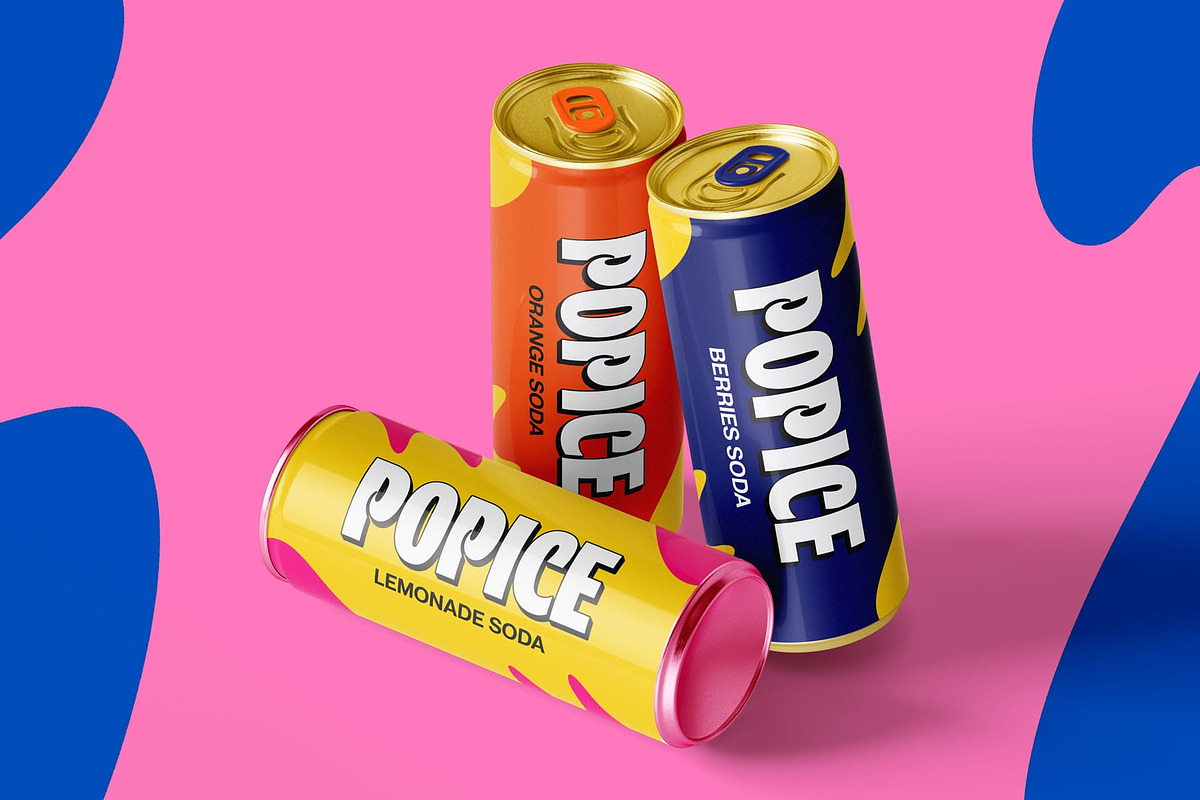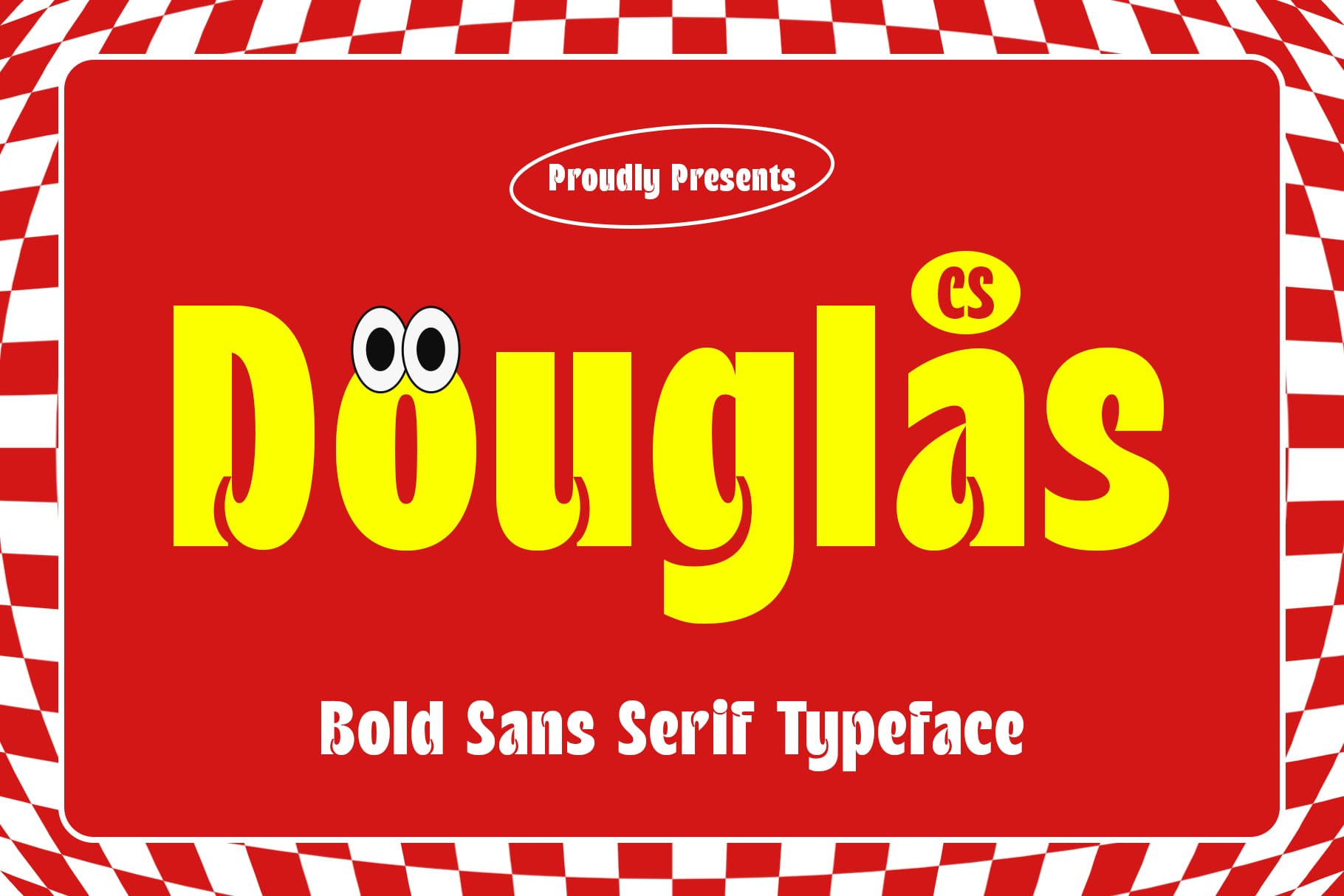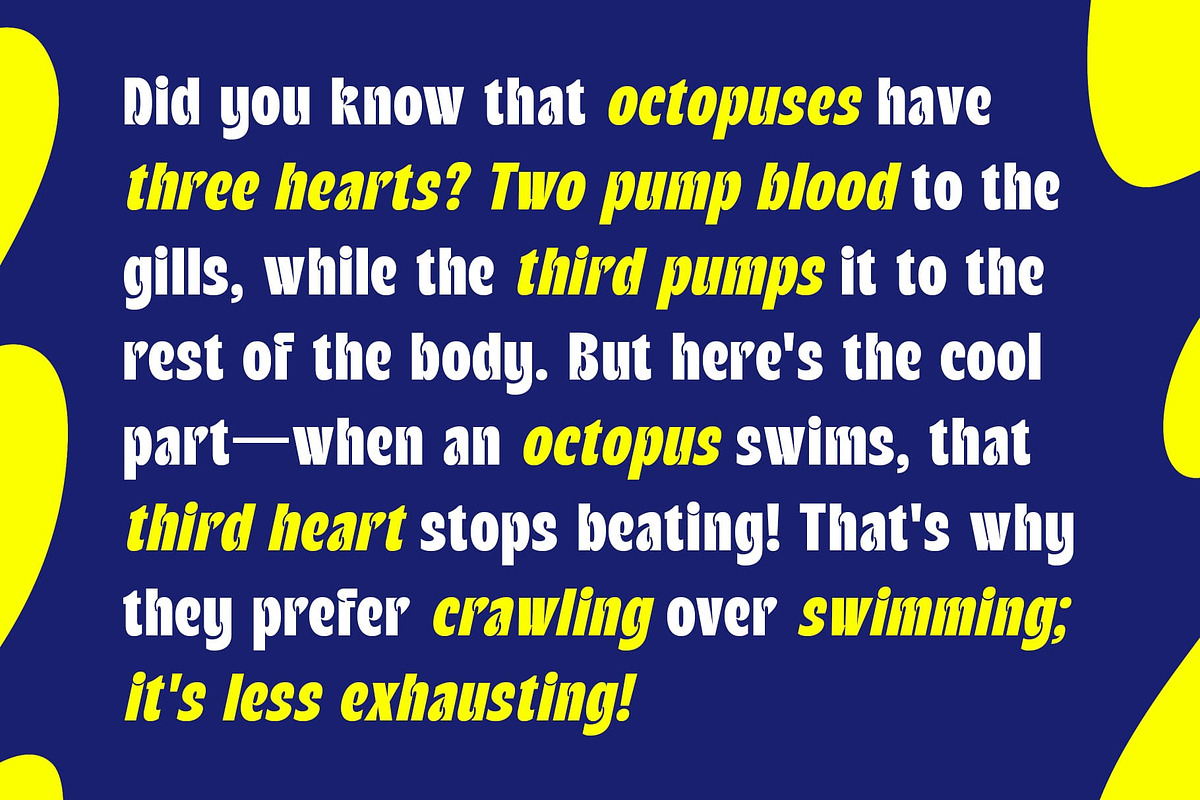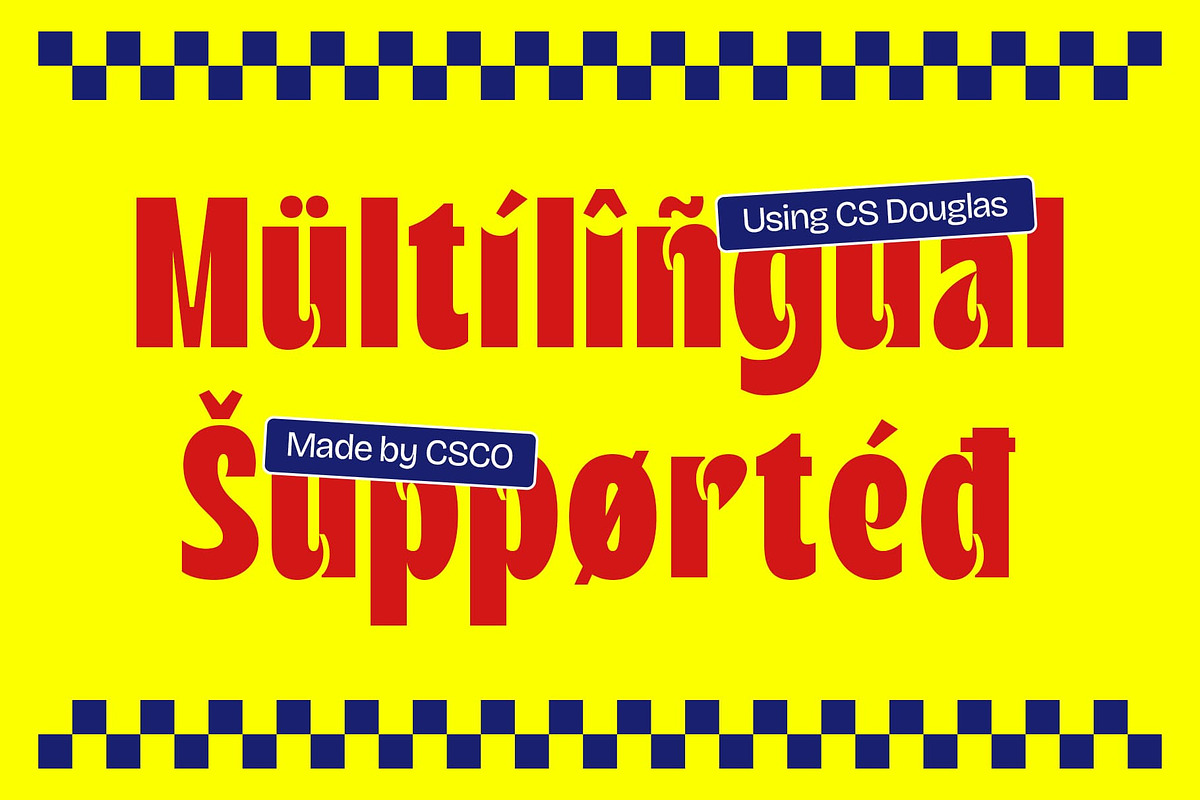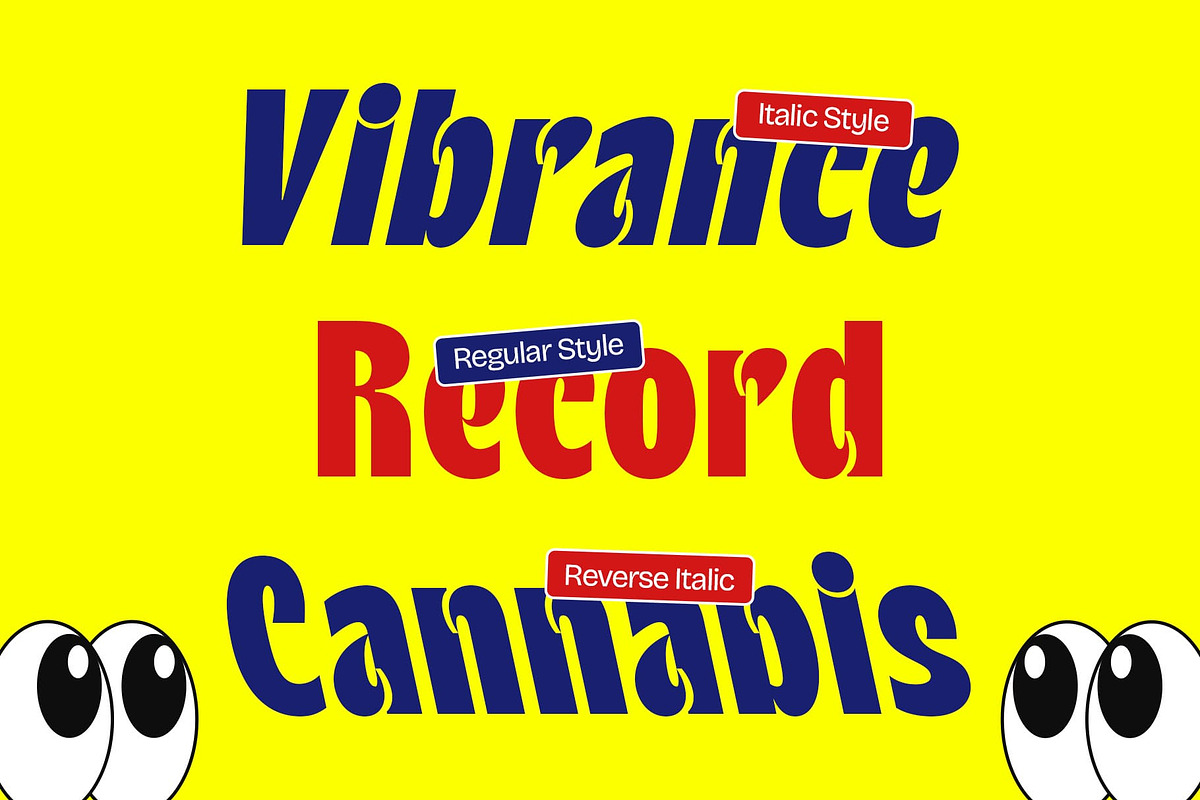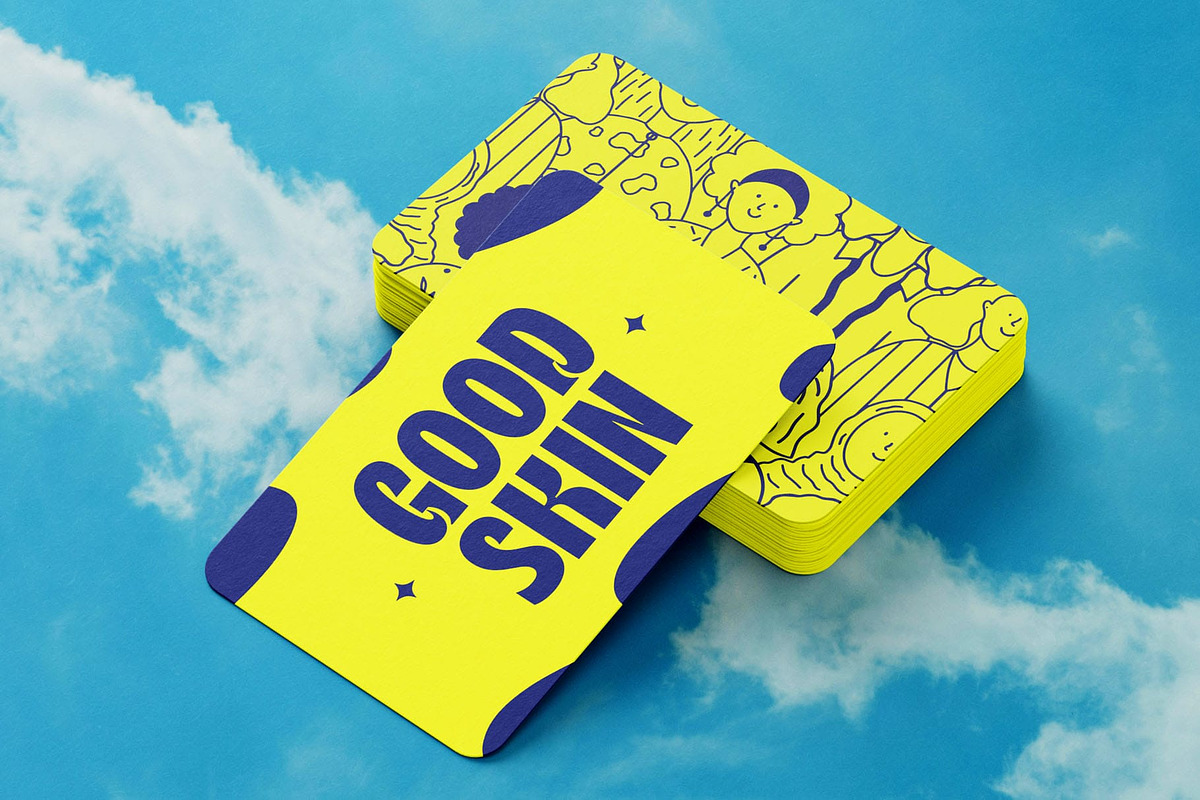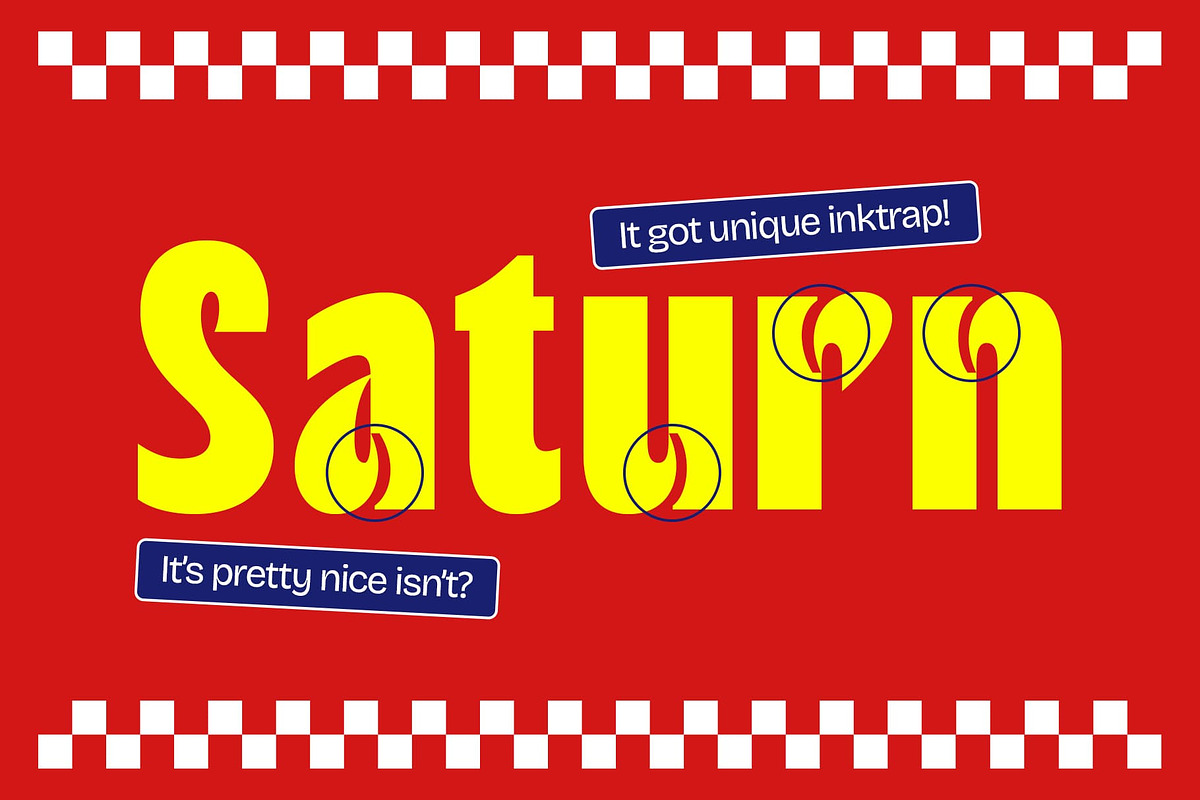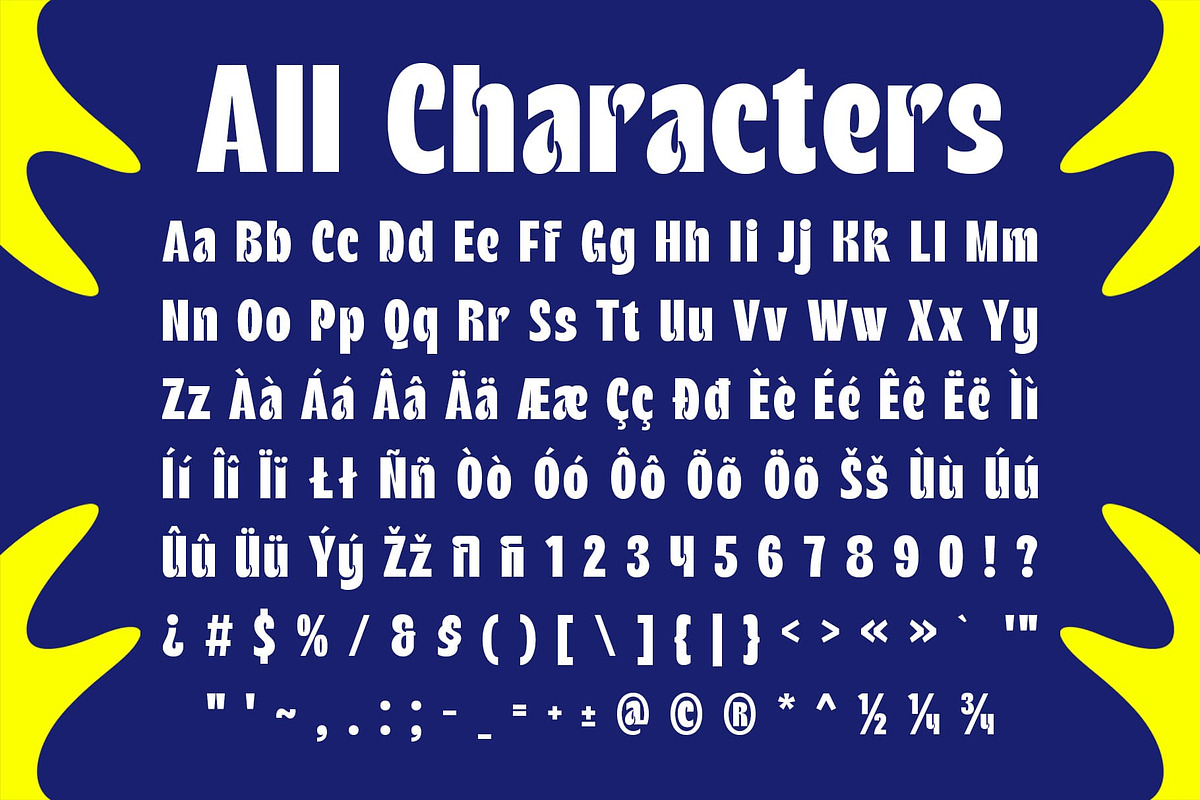
CS Douglas – Bold Font
CS Douglas – A Bold Sans-Serif Font with Inktrap Precision
Modern, Bold, and Uniquely Expressive CS Douglas is a modern sans-serif font featuring a bold structure and precise inktrap design, making it both powerful and highly readable. The sharp, structured letterforms create a confident and striking look, while the inktrap details at the corners add a distinctive edge that enhances clarity and character.
Inktrap Details for Maximum Impact Designed with functional yet stylish inktraps, CS Douglas balances form and function, ensuring readability while amplifying its bold, geometric style. These subtle yet impactful details create a dynamic aesthetic, making the font feel modern, fresh, and full of energy.
Funky, Lively, and Versatile With its bold presence and playful energy, CS Douglas brings a funky and expressive vibe to any design. Whether used for branding, editorial headlines, posters, or digital projects, this font stands out with a strong, confident, and slightly unconventional appeal.
Perfect for High-Impact Design Projects Ideal for creative branding, tech-inspired designs, modern posters, and striking digital content, CS Douglas is made for projects that require a bold and attention-grabbing statement. Whether you’re working on advertising campaigns, UI/UX design, or standout typography, this font ensures high visibility and a powerful, contemporary style.